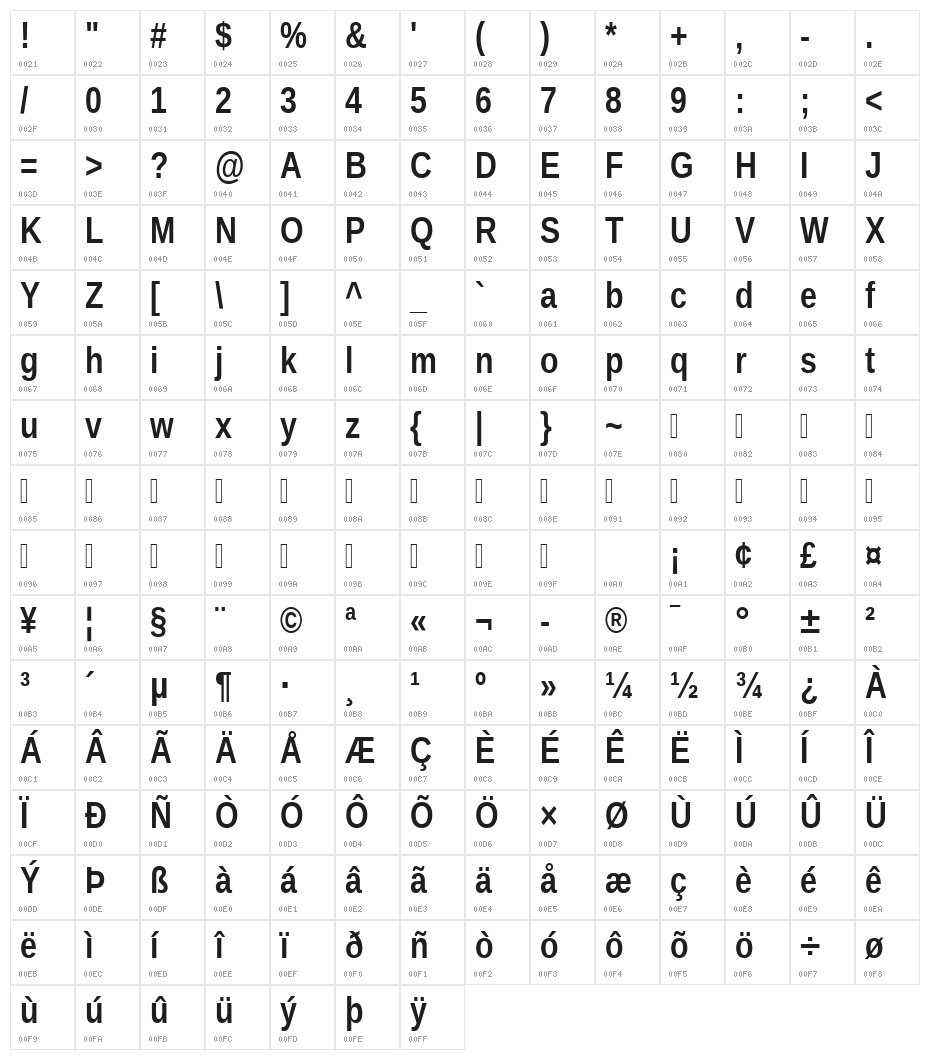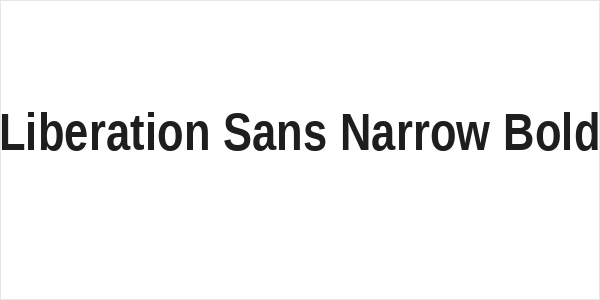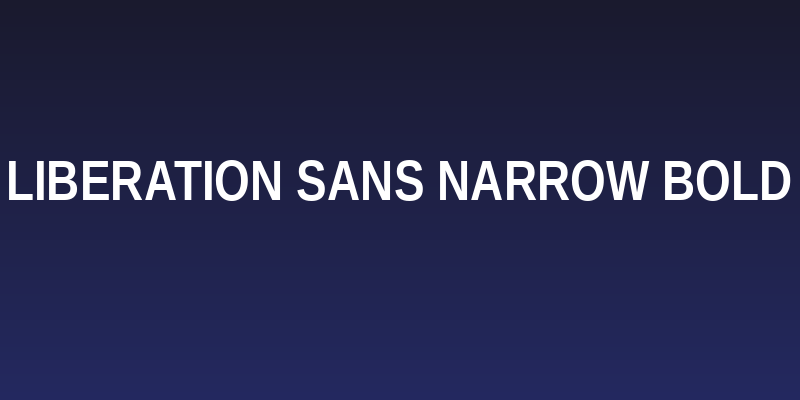
Liberation Sans Narrow Bold Font
Liberation Sans Narrow Bold Description
This typeface is a sans-serif font characterized by its narrow and bold appearance. It features clean, straight lines and a modern aesthetic, making it highly legible and versatile. The uppercase letters are uniform in height, while the lowercase letters maintain a consistent baseline, enhancing readability. The numerals are clear and distinct, and the special characters are well-defined, ensuring they stand out. This font's bold weight and narrow width make it suitable for impactful headlines and titles, while its simplicity allows it to be used in various design contexts.
| Proposed Projects | Ideal for headlines, posters, branding, and digital media where a strong, modern look is desired. |